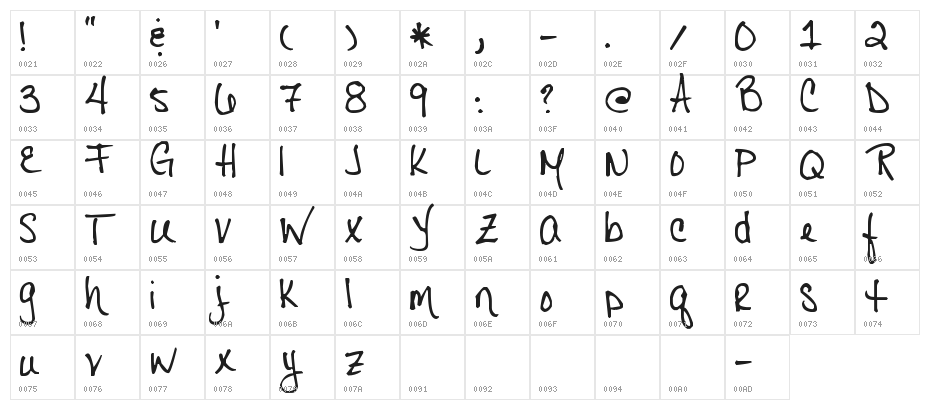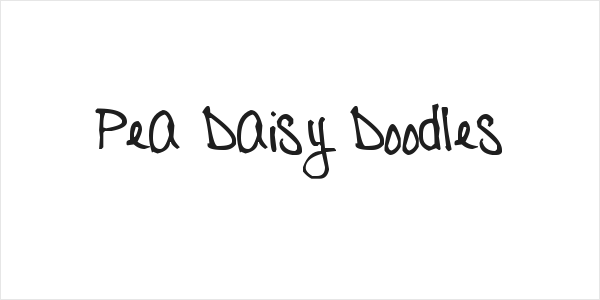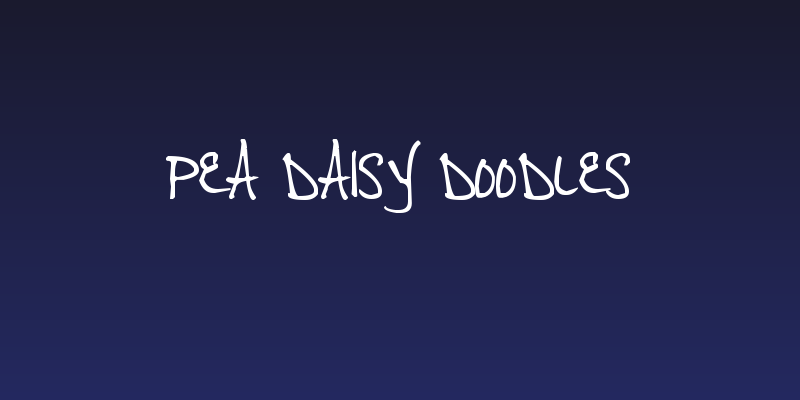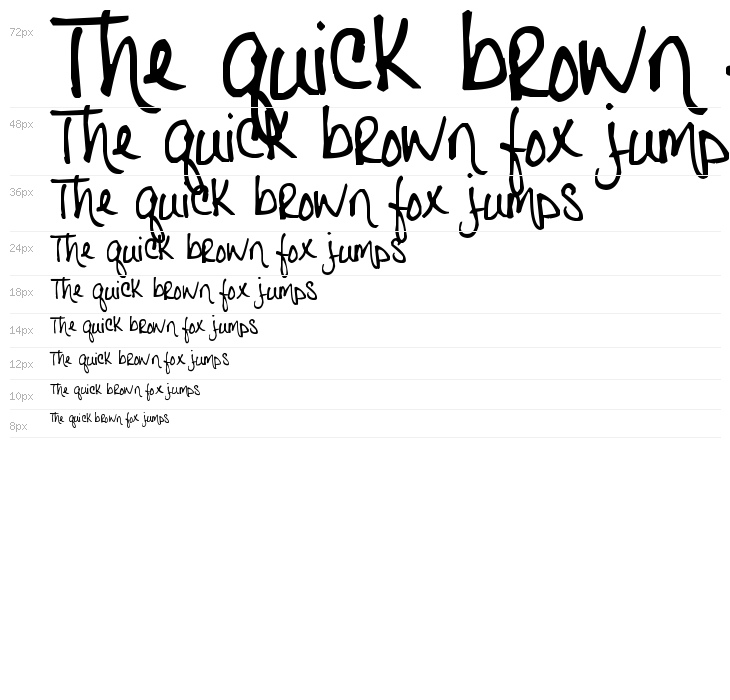
Pea Daisy Doodles Font
Pea Daisy Doodles Description
This playful and whimsical font features a handwritten style with a casual, doodle-like appearance. The letters are unevenly sized, with a natural, flowing script that gives it a personal touch. The strokes are bold and slightly irregular, adding to its charm and informal feel. The uppercase and lowercase letters maintain a consistent style, while the numbers and special characters complement the overall design. This font exudes a sense of fun and creativity, making it ideal for projects that require a personal and approachable aesthetic.
| Proposed Projects | Great for greeting cards, children's books, playful branding, and creative projects. |